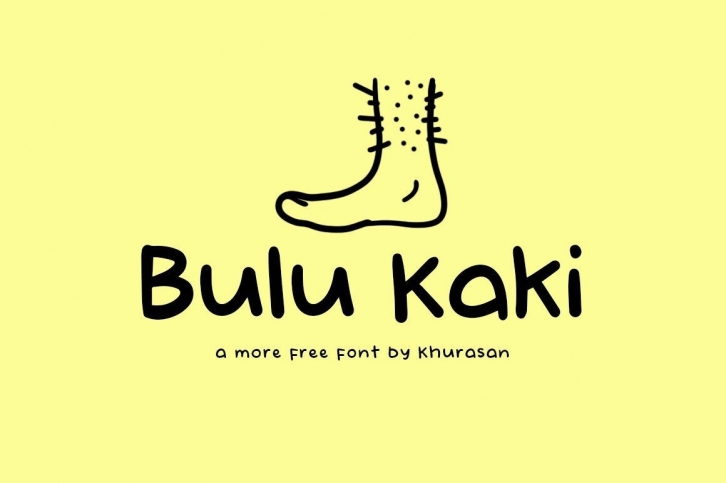
Bulu Kaki is a modern and quirky handwritten font perfect for posters, logos, magazines, book covers, banners, and more! Get this amazing typeface, and use it to create lovely designs!